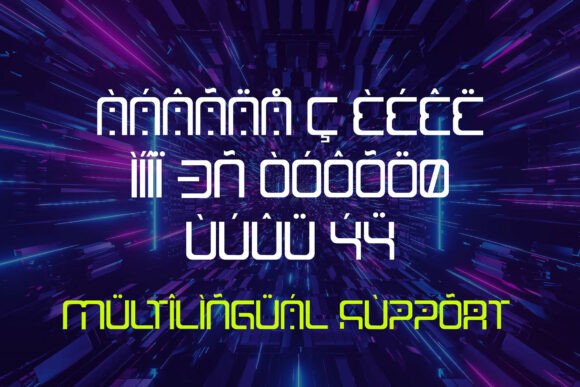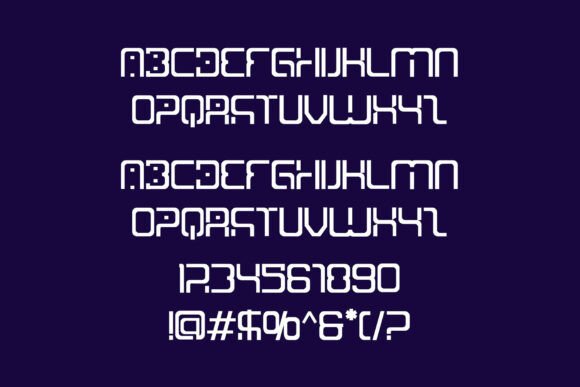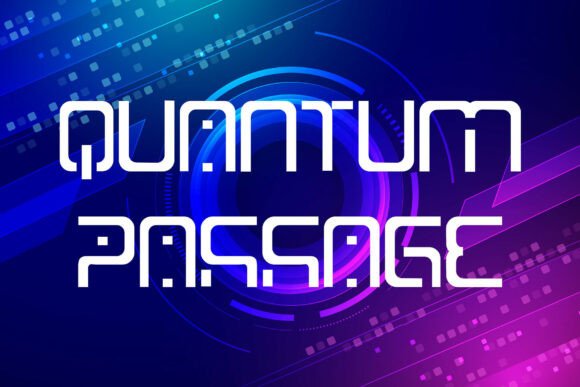
Introduction to Pixel Sparta Font
Pixel Sparta is an audacious, forward-thinking typeface, expertly melding the meticulous precision of digital design with the untamed vivaciousness of pixel art.
Inspired by the electric pulse of cyberpunk culture, the thrill of sci-fi gaming, and the nostalgia of retro arcade visual cues, its unique charm resides in its power to give projects a distinctively modern presence The design of each character, shaped with geometric finesse and futuristic curves, infuses a tech-savvy charisma that’s immediate and unforgettable.
Key Features of Pixel Sparta Font